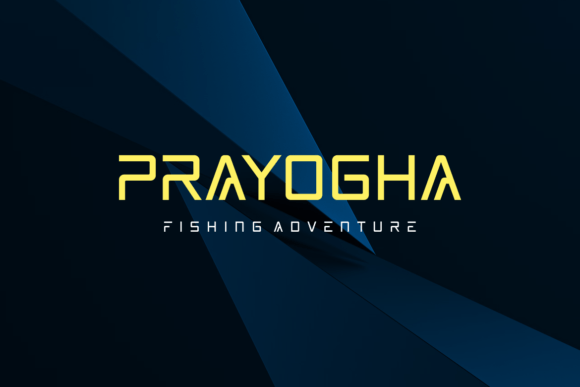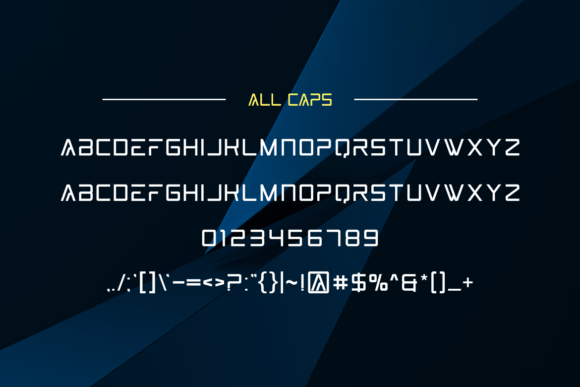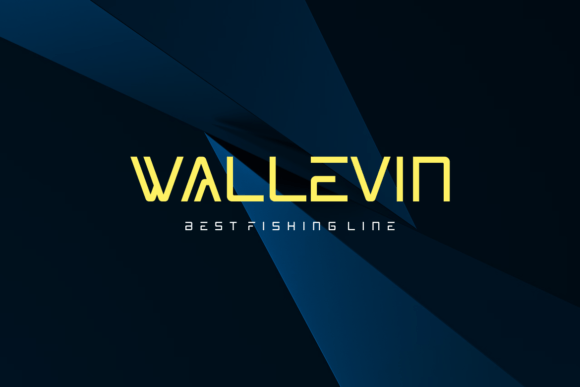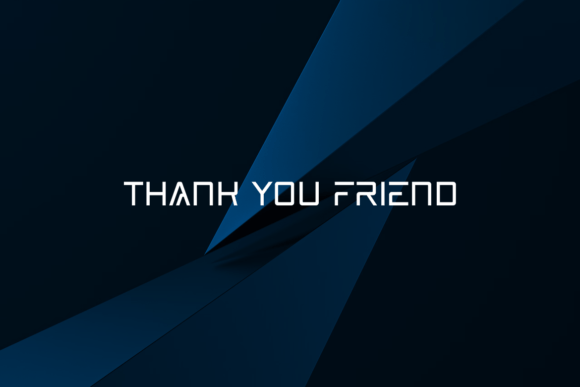
Awestoper Font: Elevate Your Designs with a Cutting-Edge, Modern Vibe
In the realm of typography, fonts play a pivotal role in conveying the tone and aesthetic of a design. For those seeking a modern, tech-savvy look, the Awestoper font emerges as an exceptional choice. This sleek and futuristic typeface is engineered to add a bold, high-tech feel to any project, making it an ideal selection for designers and crafters aiming to make a statement.
The Essence of Awestoper Font
Awestoper is characterized by its sharp edges and bold appearance, which collectively contribute to its futuristic appeal. This modern tech font is meticulously crafted to ensure readability while exuding a cutting-edge vibe. Whether you’re working on tech-themed projects, digital content, or any material that demands a contemporary edge, Awestoper steps in as a versatile and impactful solution.
Key Features of Awestoper Font
• Sleek and Futuristic Design: Awestoper’s design is deeply rooted in the futuristic style, making it perfect for projects that require a modern and innovative look.
• Sharp Edges and Bold Appearance: The font’s sharp edges and bold look not only make it visually striking but also enhance its readability, ensuring your message is conveyed effectively.
• High-Tech Feel: Awestoper adds a cool, high-tech feel to your text, elevating your design from ordinary to extraordinary.
• Easy to Read: Despite its bold and futuristic appearance, Awestoper maintains a high level of readability, making it suitable for a wide range of applications, from digital interfaces to print materials.
Applications of Awestoper Font
The versatility of Awestoper font makes it suitable for various design projects. Here are some of the key areas where Awestoper can make a significant impact:
• Tech and Digital Projects: For projects related to technology, digital marketing, software, or any tech-related field, Awestoper can add a thematic authenticity.
• Branding and Logos: The bold and modern look of Awestoper makes it an excellent choice for logos and branding materials that aim to convey innovation and forward-thinking.
• Web and Mobile Interfaces: Awestoper can enhance the user experience of web and mobile interfaces by providing a clean, modern typography that aligns with contemporary design trends.
• Marketing and Advertising: For marketing materials, advertisements, and promotional content, Awestoper can help grab attention and convey a message of modernity and innovation.
Tips for Using Awestoper Font Effectively
To maximize the impact of Awestoper font in your designs, consider the following tips:
• Pair with Complementary Fonts: While Awestoper can stand alone, pairing it with complementary fonts can enhance its versatility and create visual interest.
• Use Appropriate Color Schemes: Choose color schemes that align with the modern and tech-savvy vibe of Awestoper. Monochromatic schemes or bold contrasts can work particularly well.
• Consider Hierarchy: Utilize different weights or sizes of Awestoper to create a visual hierarchy, ensuring that your design communicates effectively.
Awestoper font stands out as a modern tech font that brings a sleek, futuristic design to the table. Its sharp edges, bold appearance, and high-tech feel make it an excellent choice for designers and crafters looking to infuse their projects with a cutting-edge vibe. With its readability and versatility, Awestoper is poised to elevate your designs, whether you’re working on tech projects, branding, digital interfaces, or marketing materials. Embrace Awestoper to make a statement and ensure your designs resonate with a modern audience.